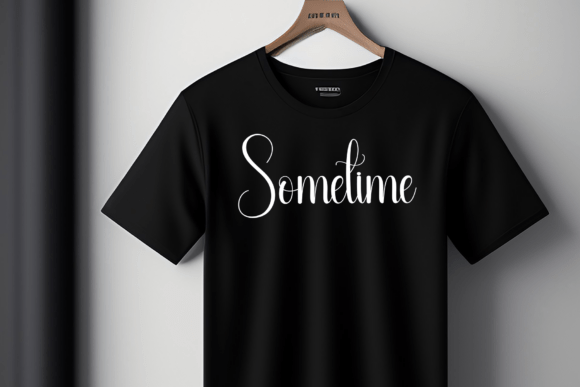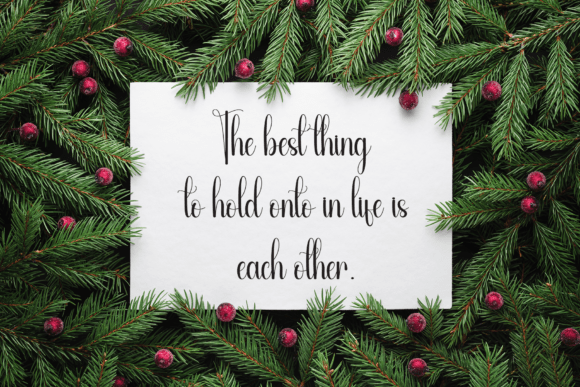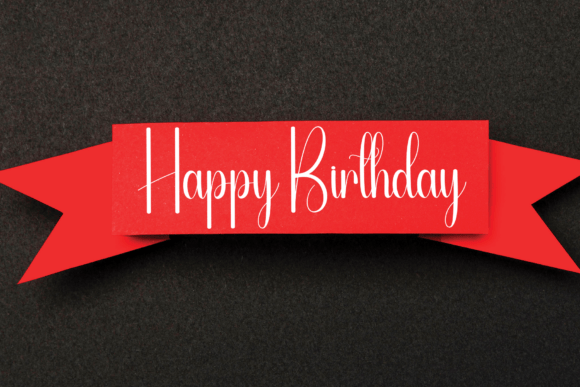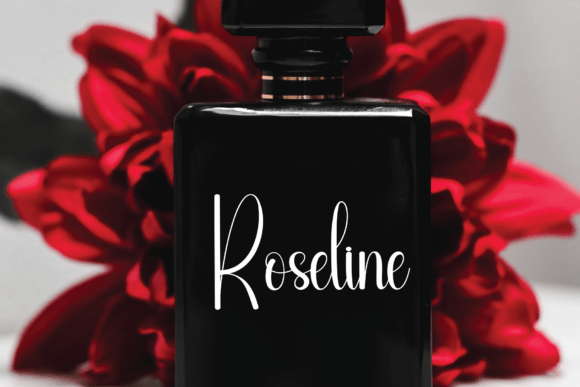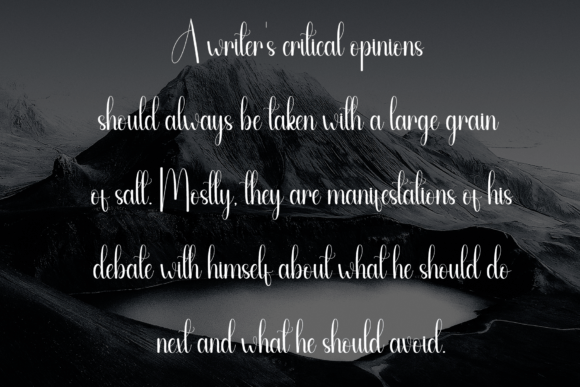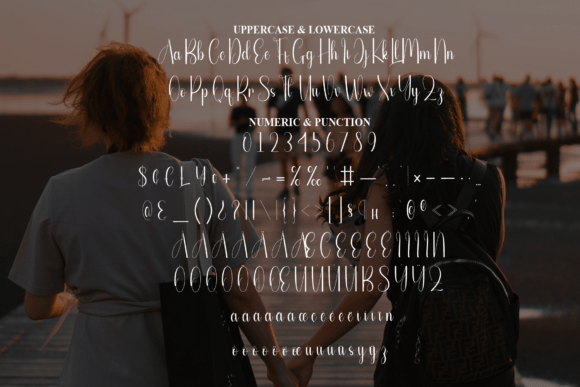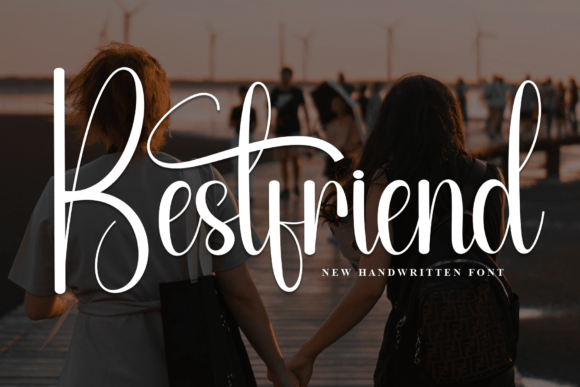
Introducing Bestfriend Font: Elevate Your Designs with Elegance and Charm
In the world of typography, few fonts manage to capture the essence of elegance and charm as effortlessly as Bestfriend. This stylish handwritten script font is designed to bring a touch of sophistication and personal flair to any design project. Whether you’re working on branding, invitations, stationery, or any other creative endeavor, Bestfriend is the perfect choice for those seeking a refined and timeless look.
The Characteristics of Bestfriend Font
Bestfriend Font is distinguished by its fluid, graceful strokes that flow smoothly, creating a natural and harmonious appearance. The font’s design is characterized by:
- Smooth Curves: The rounded edges and smooth curves of Bestfriend contribute to its soft and approachable feel, making it ideal for designs that require a personal touch.
- Natural Flow: The fluidity of the strokes gives Bestfriend a natural, handwritten appearance that feels both organic and sophisticated.
- Elegant and Refined: The overall look of Bestfriend is one of elegance and refinement, suitable for high-end branding, luxury invitations, and premium stationery.
Bestfriend’s versatility makes it an excellent choice for a wide range of design applications. Here are some of the areas where Bestfriend truly shines:
- Branding: Use Bestfriend to create a memorable and sophisticated brand identity. Its elegant appearance makes it perfect for logos, business cards, and brand guidelines.
- Invitations: Whether it’s a wedding invitation, birthday party, or any other special occasion, Bestfriend adds a touch of class and personalization that will make your invitations stand out.
- Stationery: Elevate your stationery designs with Bestfriend. It’s ideal for letterheads, notebooks, and journals, providing a refined look that reflects professionalism and style.
Why Choose Bestfriend Font?
In a sea of fonts, Bestfriend stands out for several reasons:
- Unique yet Legible: Bestfriend offers a unique style that is still highly legible, making it perfect for both display purposes and body text.
- Timeless Appeal: Unlike trendy fonts that may quickly go out of style, Bestfriend’s classic and elegant design ensures it remains relevant for years to come.
- Easy to Pair: Bestfriend can be easily paired with a variety of fonts, allowing designers to create stunning contrast and hierarchy in their designs.
Tips for Using Bestfriend Font Effectively
To get the most out of Bestfriend, consider the following tips:
- Use it as a Display Font: Bestfriend is perfect for headlines, titles, and any prominent text in your design. Its elegance and charm are sure to draw attention.
- Pair with Simplicity: For body text or supporting content, pair Bestfriend with a simple, clean font to maintain readability and balance.
- Experiment with Colors: While Bestfriend looks stunning in black or dark colors, don’t be afraid to experiment with different colors that match your brand or design theme.
Bestfriend Font is a stylish and elegant handwritten script font that brings a touch of sophistication and charm to any design. Its fluid strokes, smooth curves, and natural flow create a timeless and refined look, making it perfect for a variety of applications, from branding and invitations to stationery. With its unique yet legible design, Bestfriend is sure to elevate your designs and leave a lasting impression.
Whether you’re a professional designer or a crafty DIY enthusiast, Bestfriend Font is an excellent addition to your typography arsenal. So, why settle for ordinary when you can add a touch of elegance and charm to your designs? Choose Bestfriend Font for your next project and experience the difference it can make.